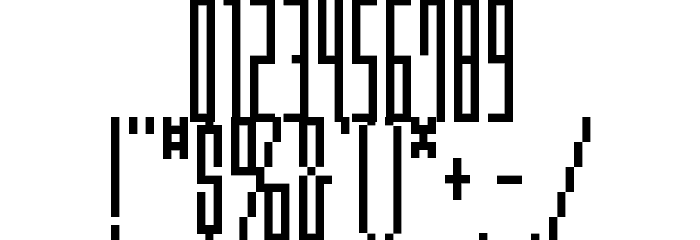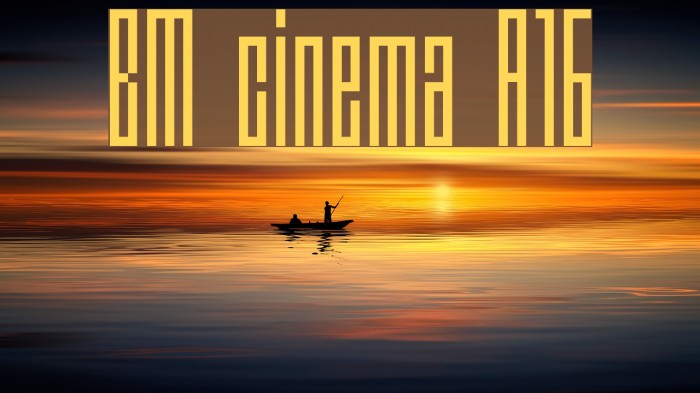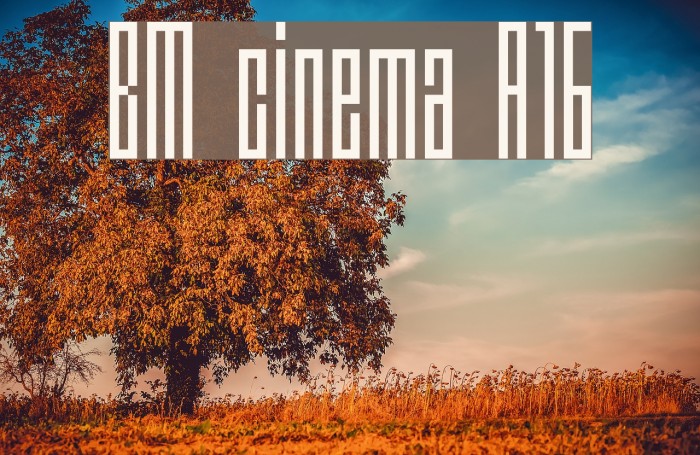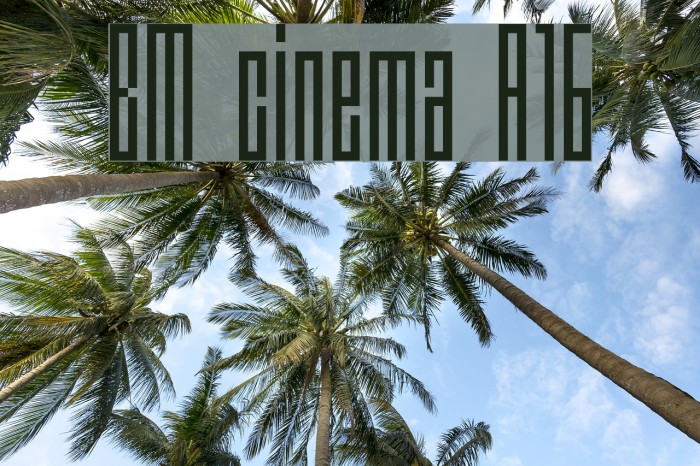
BM cinema A16 Font
This font features a highly geometric and condensed style, characterized by its tall, narrow letters with consistent stroke widths. The design is reminiscent of digital or pixelated typefaces, giving it a retro, tech-inspired appearance. The uppercase and lowercase letters maintain a uniform height, contributing to its structured and orderly look. The numerals and special characters follow the same design principles, ensuring a cohesive visual identity across all glyphs. This font's unique aesthetic makes it stand out, particularly in contexts that embrace a vintage digital or futuristic theme.
A geometric, condensed font with a retro digital aesthetic.
- Proposed Projects: Ideal for retro-themed designs, tech-related branding, digital art, and video game interfaces.
- Character Spacing: Tight
- Overall Style: Vintage
- Use Case: Logos, Headlines, Digital Art